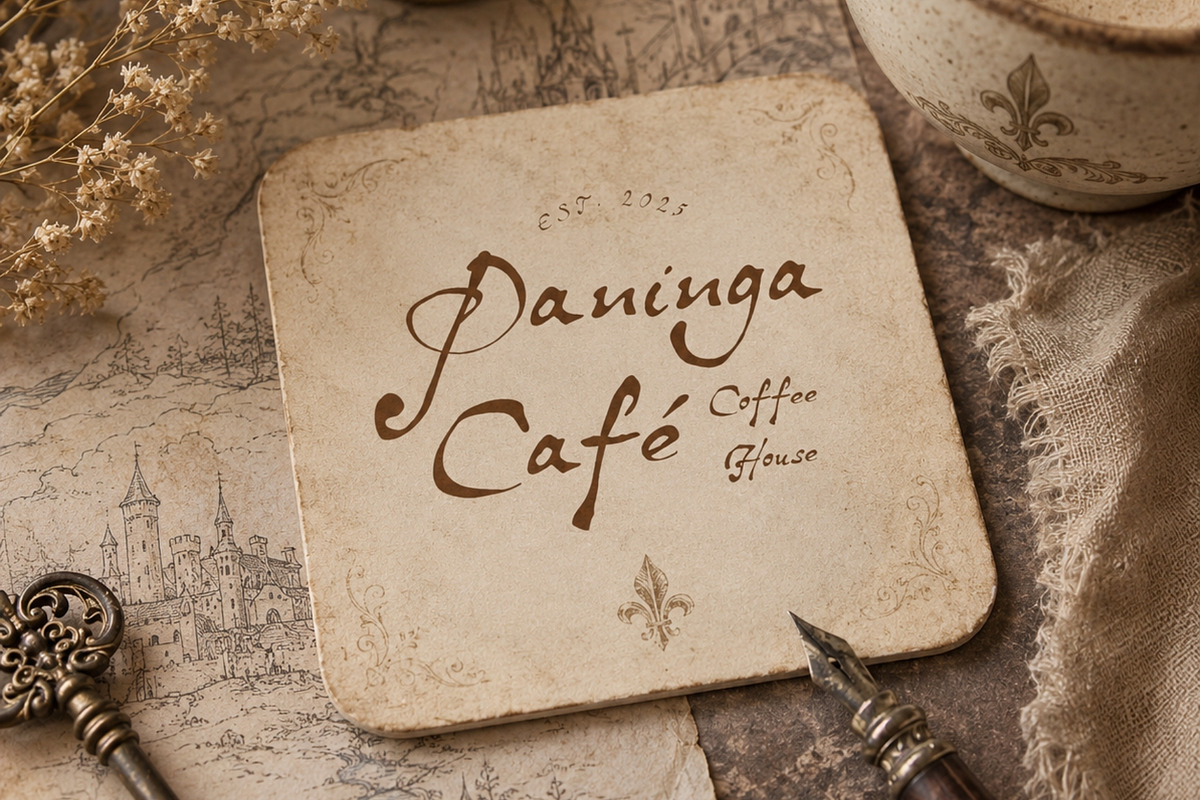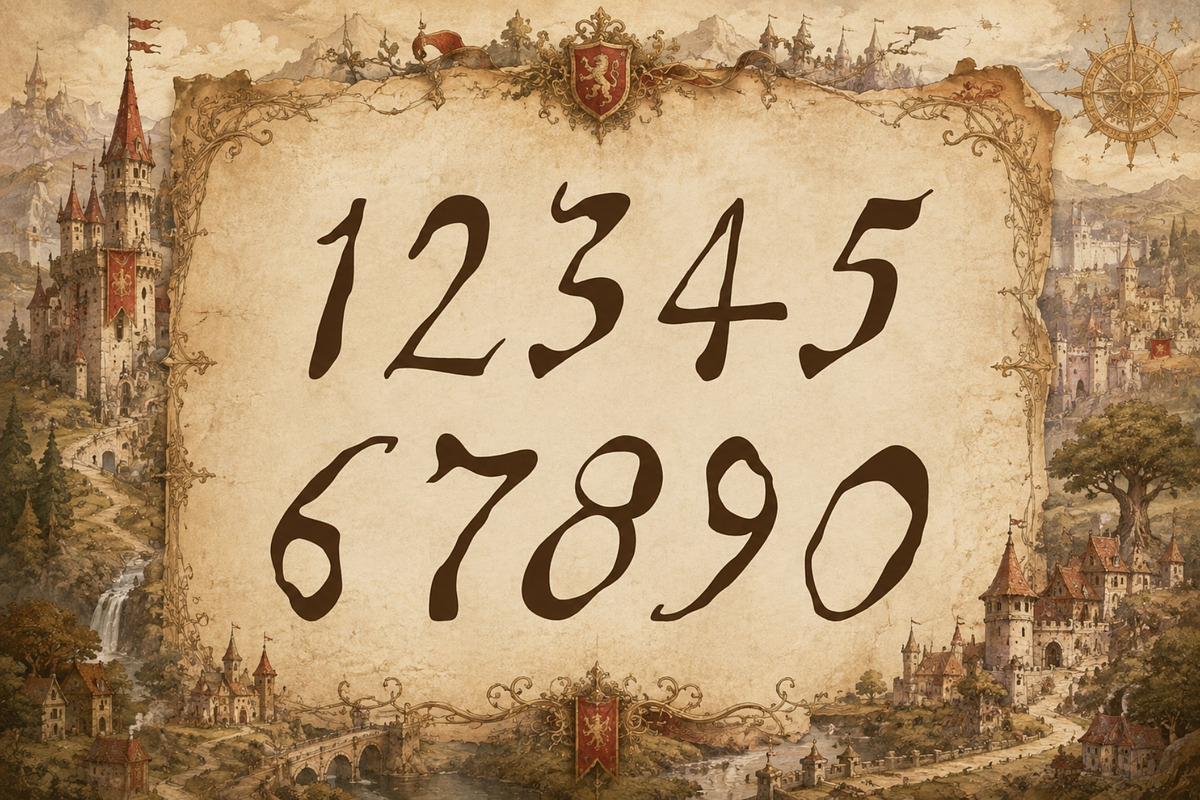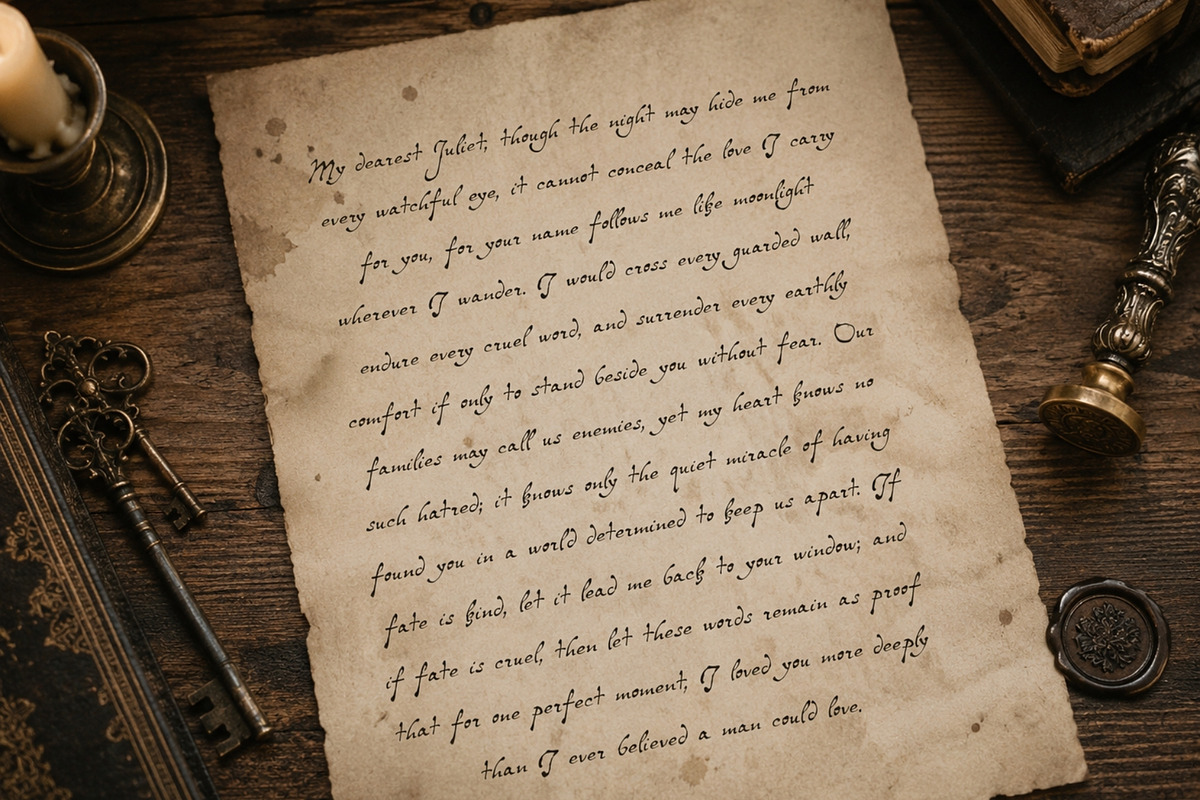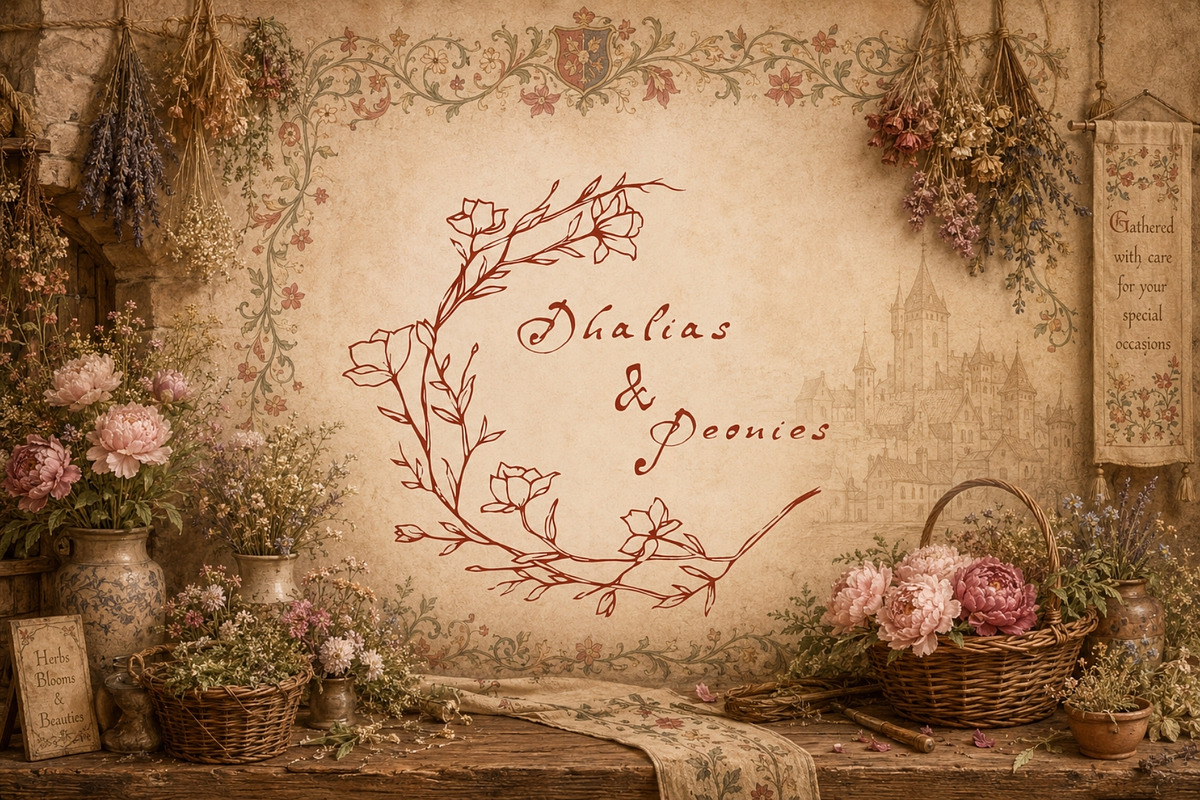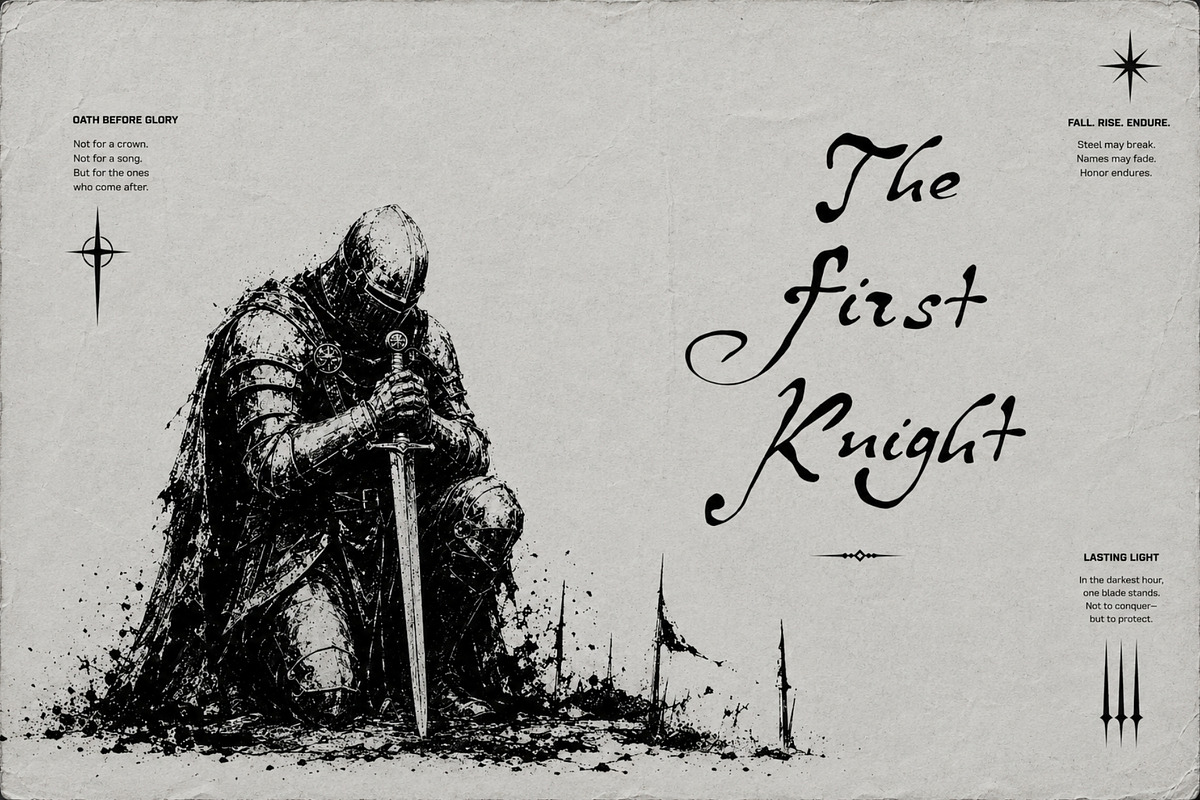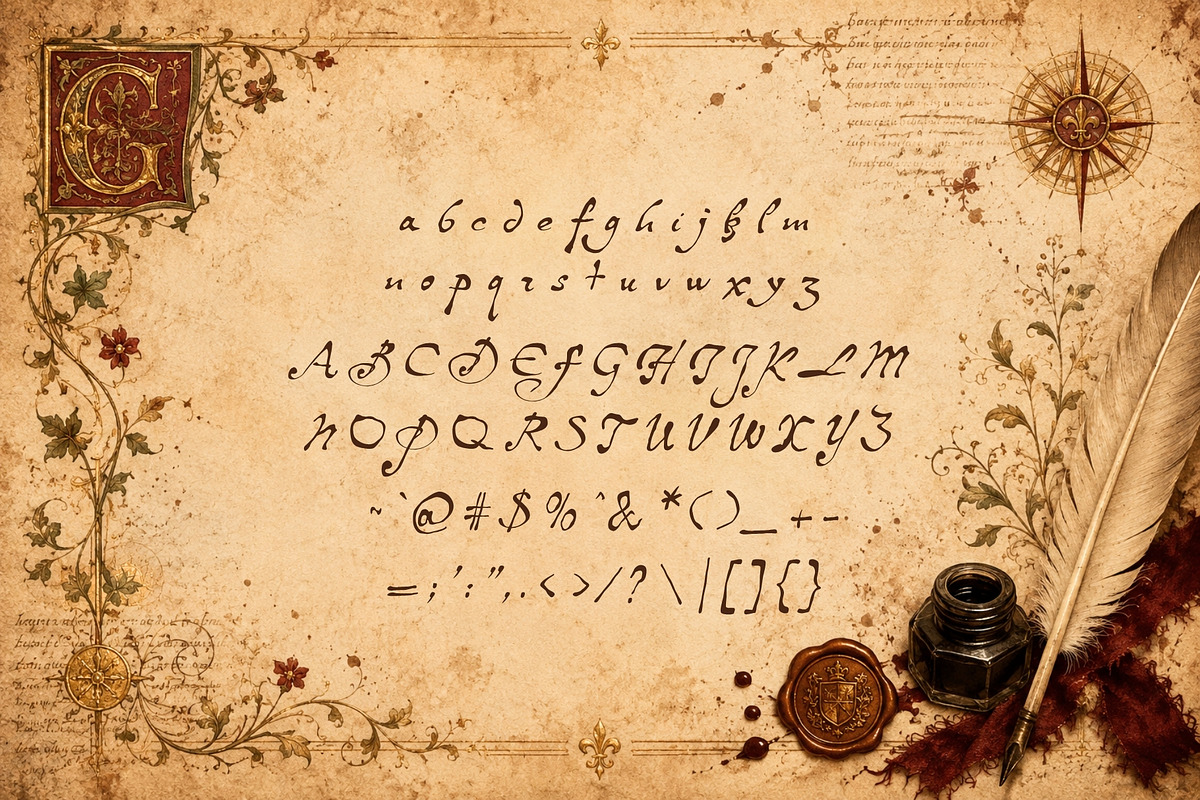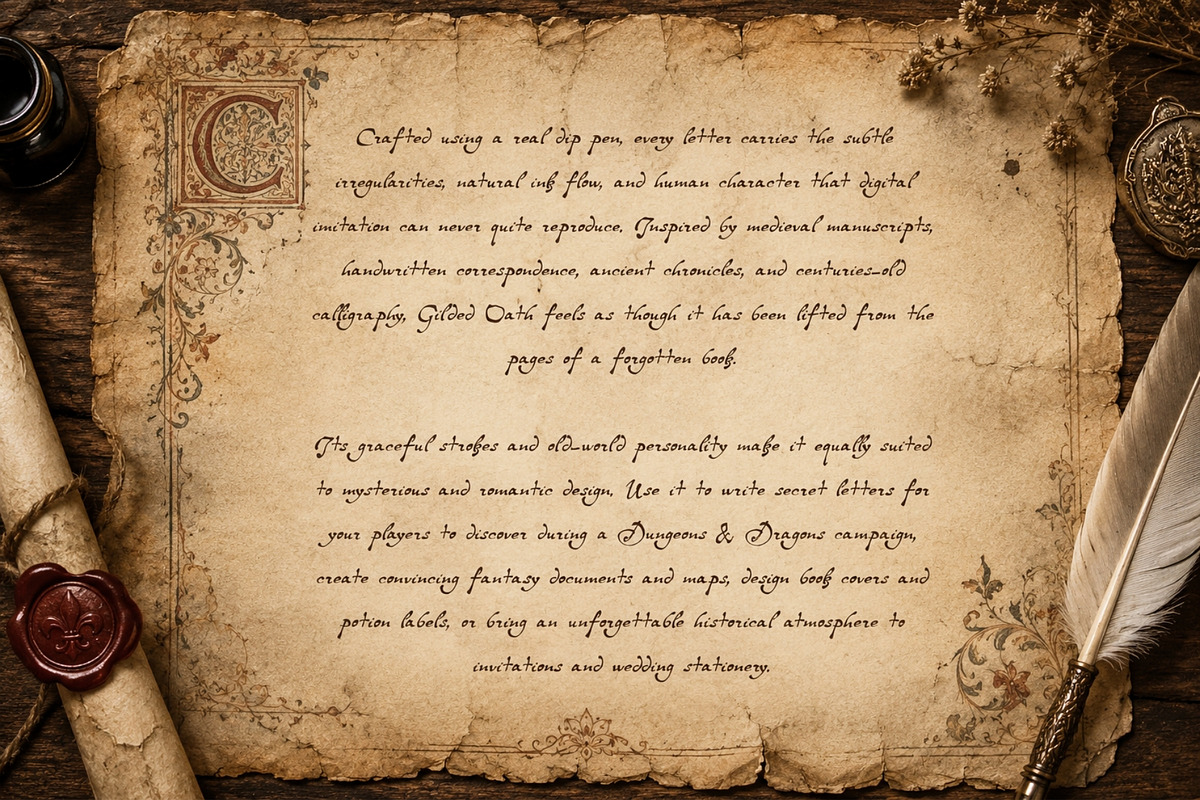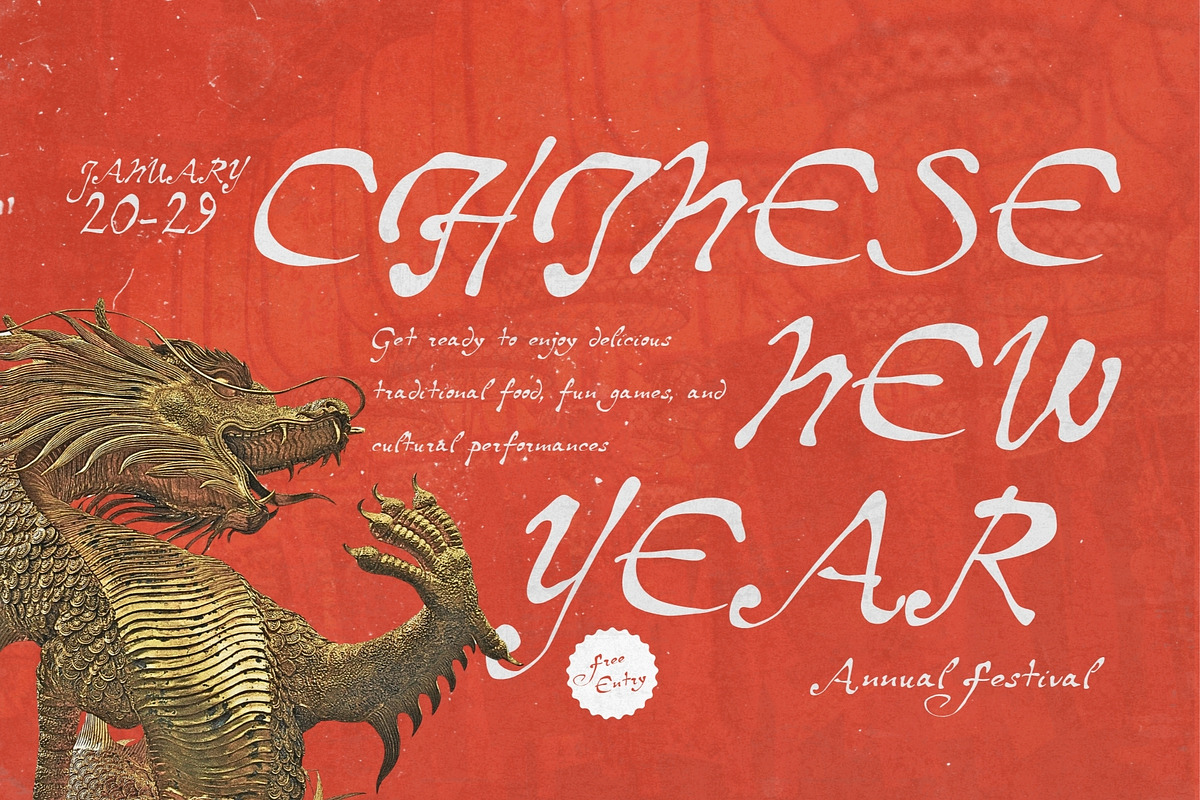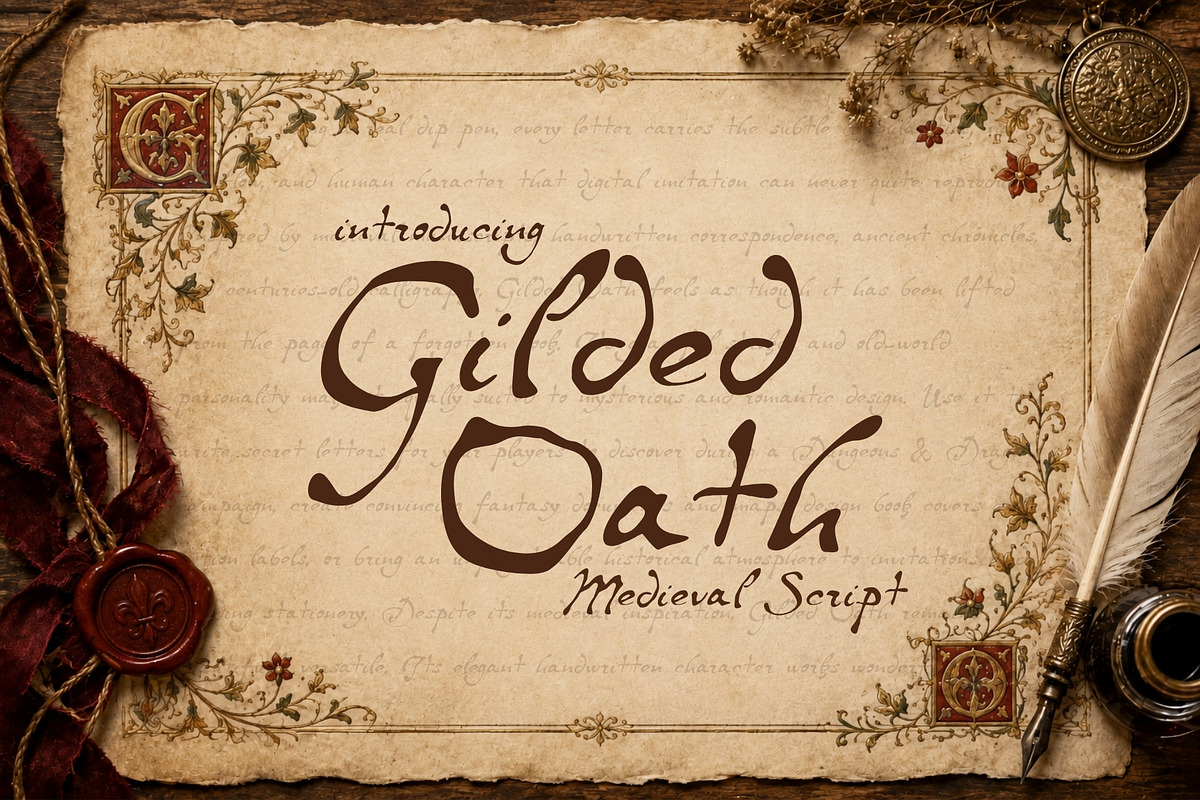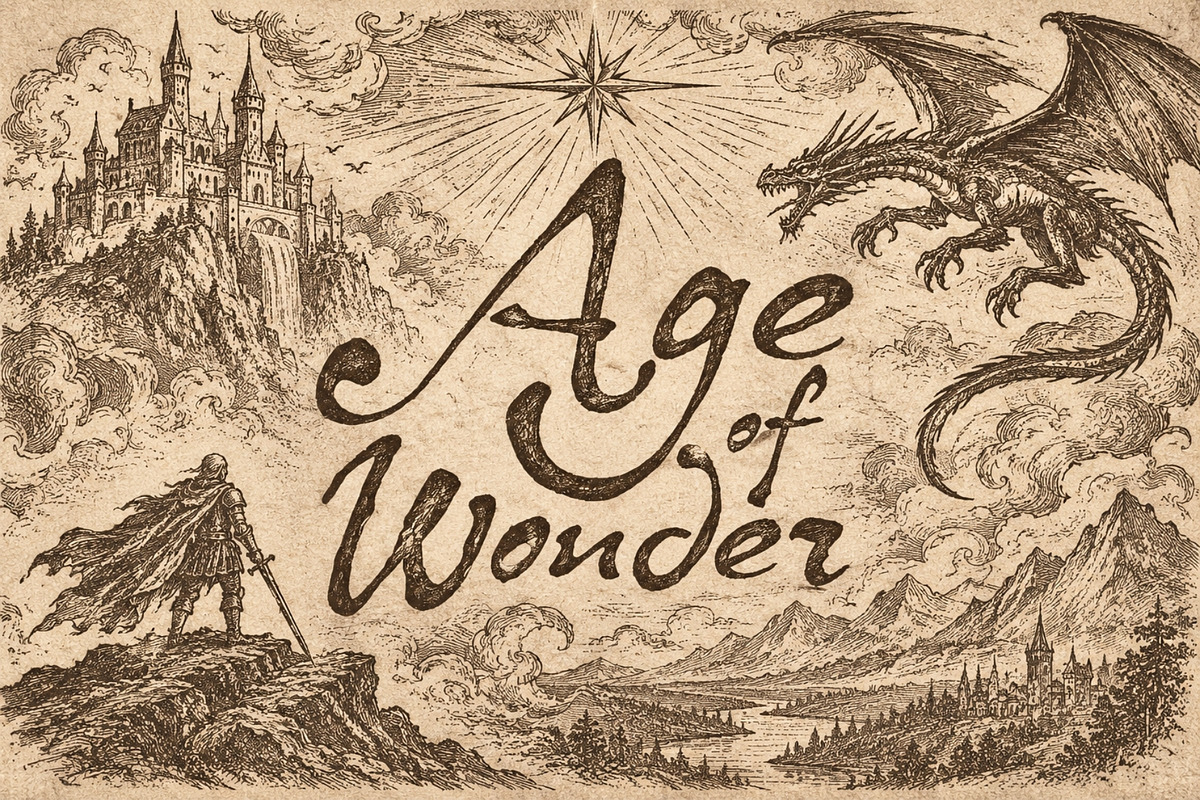
Gilded Oath - Medieval Ink Script
Meet Gilded Oath, an elegant hand-written typeface shaped by ink, history, and the mystery of the medieval world.
Crafted using a real dip pen, every letter carries the subtle irregularities, natural ink flow, and human character that digital imitation can never quite reproduce. Inspired by medieval manuscripts, handwritten correspondence, ancient chronicles, and centuries-old calligraphy, Gilded Oath feels as though it has been lifted from the pages of a forgotten book.
Its graceful strokes and old-world personality make it equally suited to mysterious and romantic design. Use it to write secret letters for your players to discover during a Dungeons & Dragons campaign, create convincing fantasy documents and maps, design book covers and potion labels, or bring an unforgettable historical atmosphere to invitations and wedding stationery.
Despite its medieval inspiration, Gilded Oath remains beautifully versatile. Its elegant handwritten character works wonderfully for logos, boutique branding, wedding invitations, menus, packaging, book covers, fantasy artwork, tabletop gaming materials, stationery, posters, labels, and editorial design.
Whether you're creating correspondence from a forgotten kingdom, an invitation to a candlelit celebration, or branding that deserves to feel genuinely handcrafted, Gilded Oath transforms ordinary words into artifacts with a story behind them.
Authentically inked. Elegantly imperfect. Written for stories worth remembering.